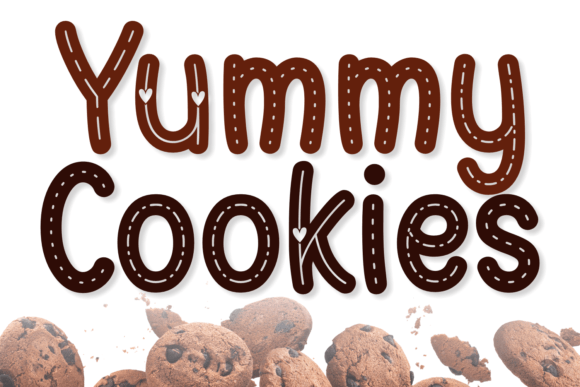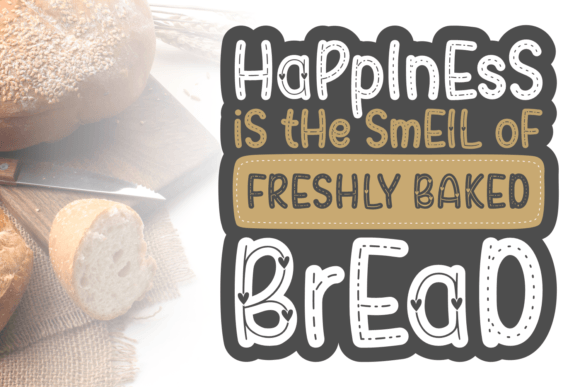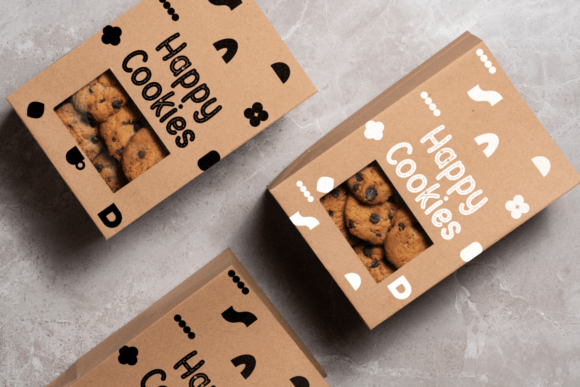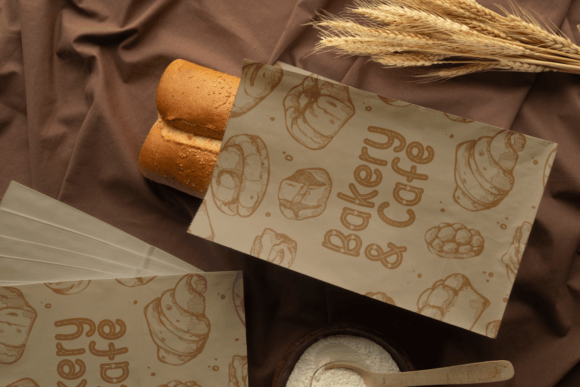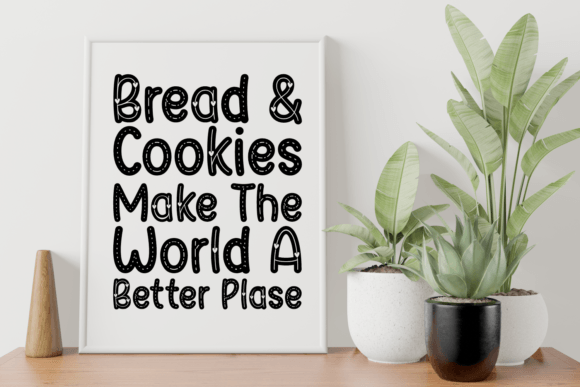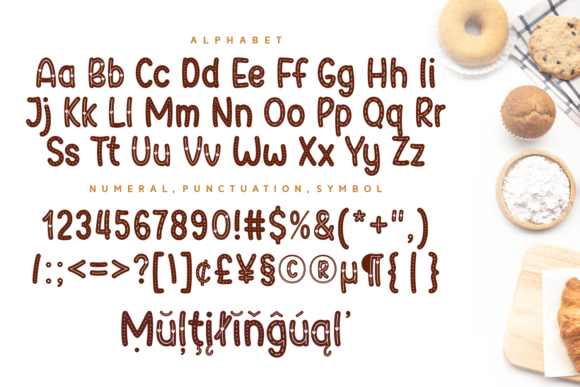
Bread & Cookies Font: The Perfect Addition to Your Design Collection
Are you a designer or crafter looking for a unique and stylish font to add some personality to your projects? Look no further than the Bread & Cookies font! This cheerful and decorative font is sure to bring a touch of warmth and charm to any design.
What Makes Bread & Cookies Font So Special?
Bread & Cookies is a beautifully crafted font that boasts lovely details, giving it a specific charm that sets it apart from other fonts. Its decorative style makes it perfect for adding a touch of elegance and sophistication to any design. Whether you’re working on a logo, flyer, product packaging, or DIY decoration, this font is sure to make your project stand out.
Uses for Bread & Cookies Font
The versatility of the Bread & Cookies font is one of its most appealing features. Here are just a few ideas for how you can use this font in your designs:
- Logos: Create a memorable and eye-catching logo for your business or brand with the Bread & Cookies font.
- Flyers: Add a touch of whimsy and charm to your flyers with this delightful font.
- Product Packaging: Make your product stand out on store shelves with beautiful, custom packaging featuring the Bread & Cookies font.
- DIY Decorations: Use this font to create personalized decorations for your home or as gifts for friends and family.
- Invitations: Create custom invitations for parties, weddings, and other special events with the Bread & Cookies font.
- Social Media Graphics: Add a touch of personality to your social media graphics with this fun and stylish font.
Why Choose Bread & Cookies Font?
With so many fonts to choose from, why should you choose Bread & Cookies? Here are just a few reasons:
- Unique Style: The Bread & Cookies font has a unique and distinctive style that will set your designs apart from the crowd.
- Ease of Use: This font is easy to read and use, making it perfect for a wide range of design projects.
- High-Quality: The Bread & Cookies font is a high-quality font that will look great in any design.
- Versatility: As mentioned earlier, this font is incredibly versatile and can be used in a wide range of design projects.
Tips for Using Bread & Cookies Font
Here are a few tips for getting the most out of the Bread & Cookies font:
- Experiment with Different Sizes: Try out different font sizes to see how the Bread & Cookies font looks in various contexts.
- Pair with Other Fonts: Experiment with pairing the Bread & Cookies font with other fonts to create a unique and eye-catching design.
- Use in Combination with Images: Use the Bread & Cookies font in combination with images to create a visually appealing design.
| Font Name | Bread & Cookies Font |
| Author | Feri (7NTypes) |
In conclusion, the Bread & Cookies font is a fantastic addition to any design collection. Its unique style, ease of use, and versatility make it perfect for a wide range of design projects. Whether you’re a designer or crafter, this font is sure to bring a touch of warmth and charm to your designs. So why wait? Download the Bread & Cookies font today and start creating your own unique designs!